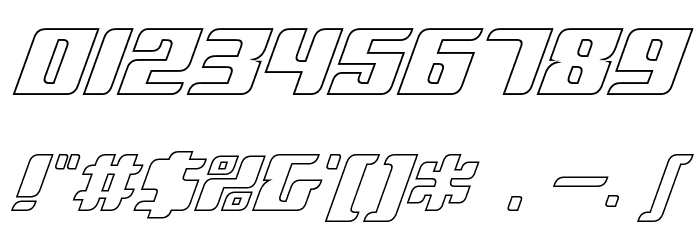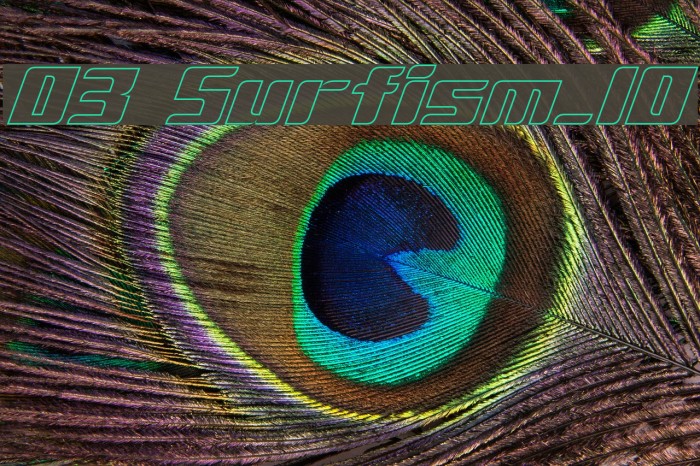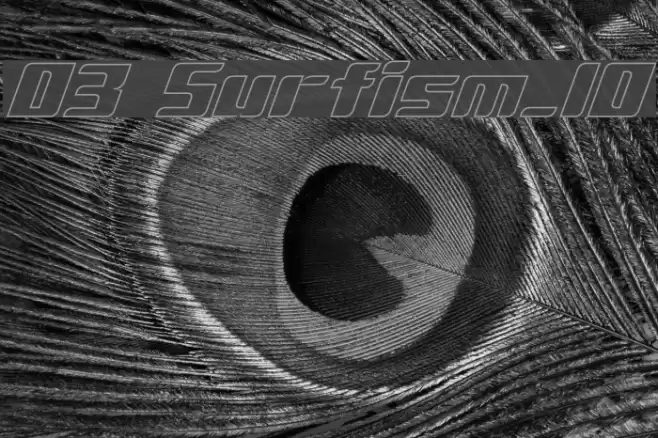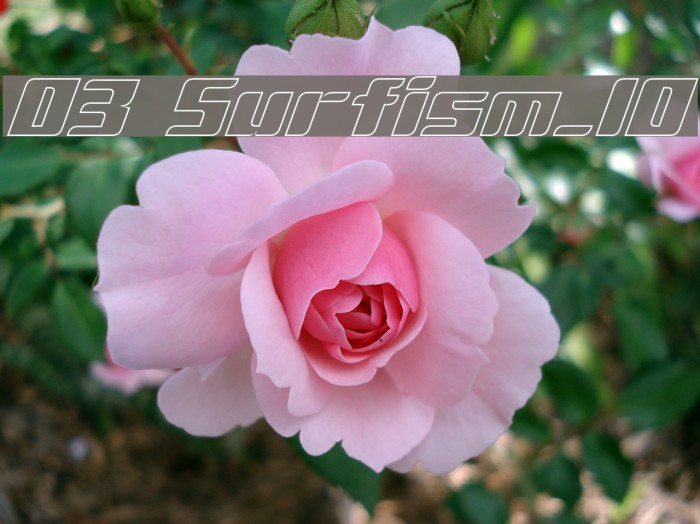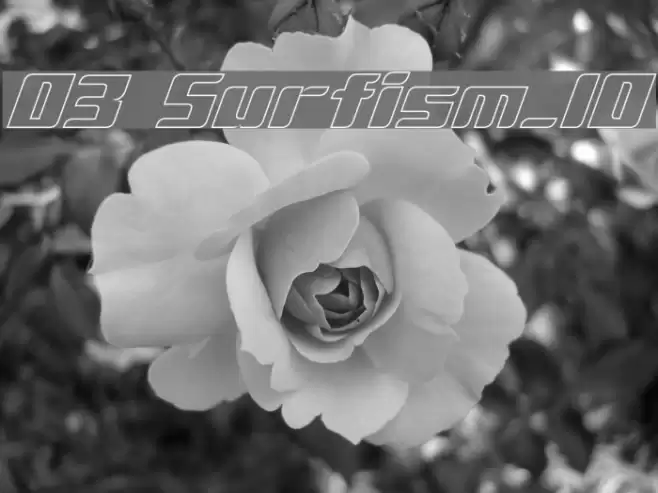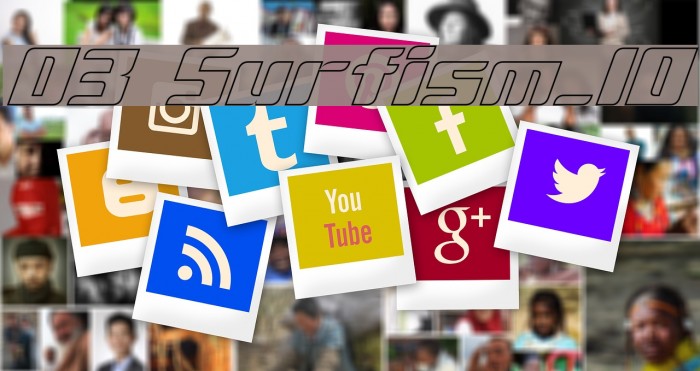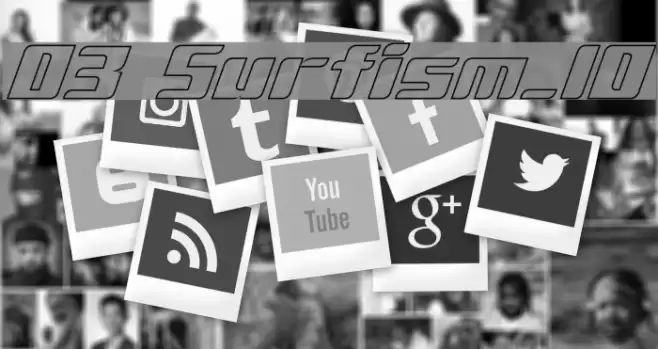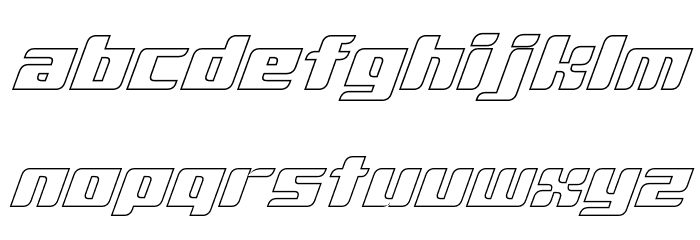
D3 Surfism_IO Font
D3 Surfism_IO Description
This font features a bold, geometric style with a distinct outline that gives it a futuristic and dynamic appearance. The characters are slightly slanted, adding a sense of motion and energy. The uppercase and lowercase letters maintain a consistent design, with sharp angles and clean lines. The numbers and special characters follow the same aesthetic, ensuring uniformity across all glyphs. This font's unique style makes it stand out, ideal for projects that require a modern and edgy look.
| Proposed Projects | Ideal for branding, posters, video game graphics, and sci-fi themed projects. |